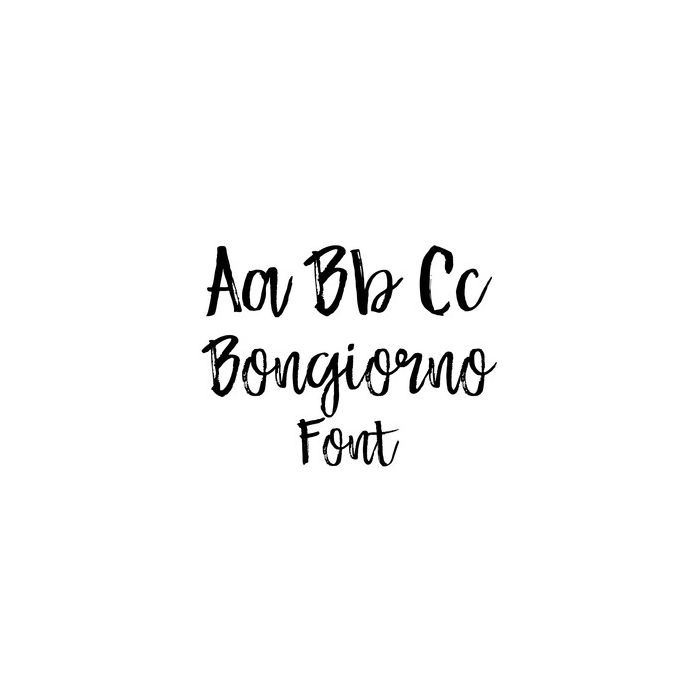
Bongiorno is a brushed marker script with a rough edge and loads of texture for a brushed look. This font is perfect for using in ink, brushed designs and works great for display headers, invitations, posters, T-shirts.